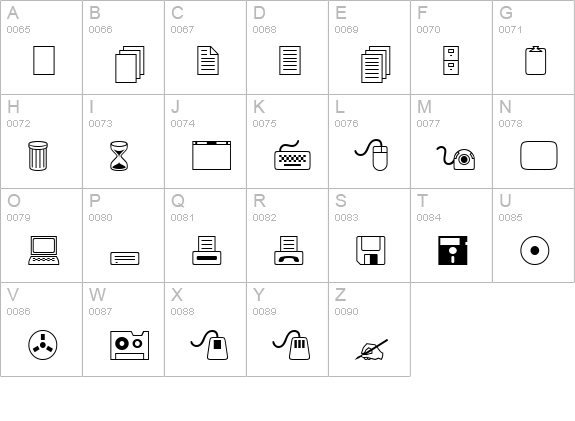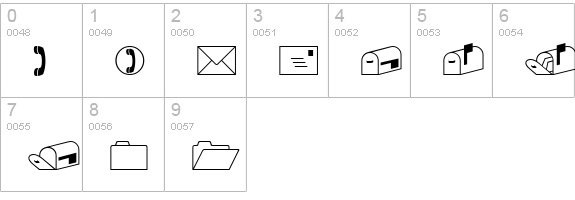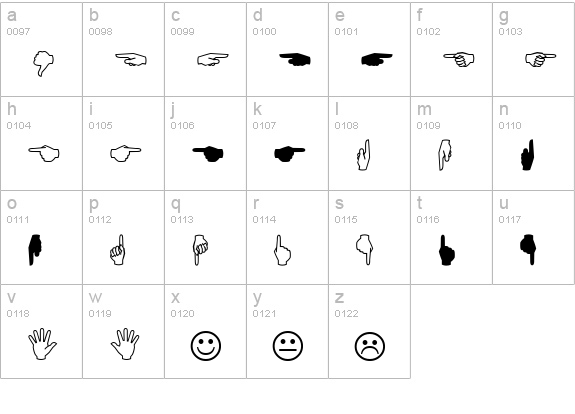
Cindy Icons Font Details
Introducing Cindy Icons font, a versatile and modern typeface that is perfect for adding a touch of elegance to your designs. This font features a unique set of icons that can be used to enhance various projects, from websites to print materials. What sets Cindy Icons font apart is its sleek and stylish design, making it a standout choice for creatives looking to make a statement. The icons included in this font cover a wide range of themes, making it suitable for a variety of design needs. Best of all, Cindy Icons font is available for free download at FontsMarket.com. So whether you're a designer looking to add some flair to your projects or a business owner in need of eye-catching visuals, Cindy Icons font is the perfect solution. Download it today and elevate your designs with ease!